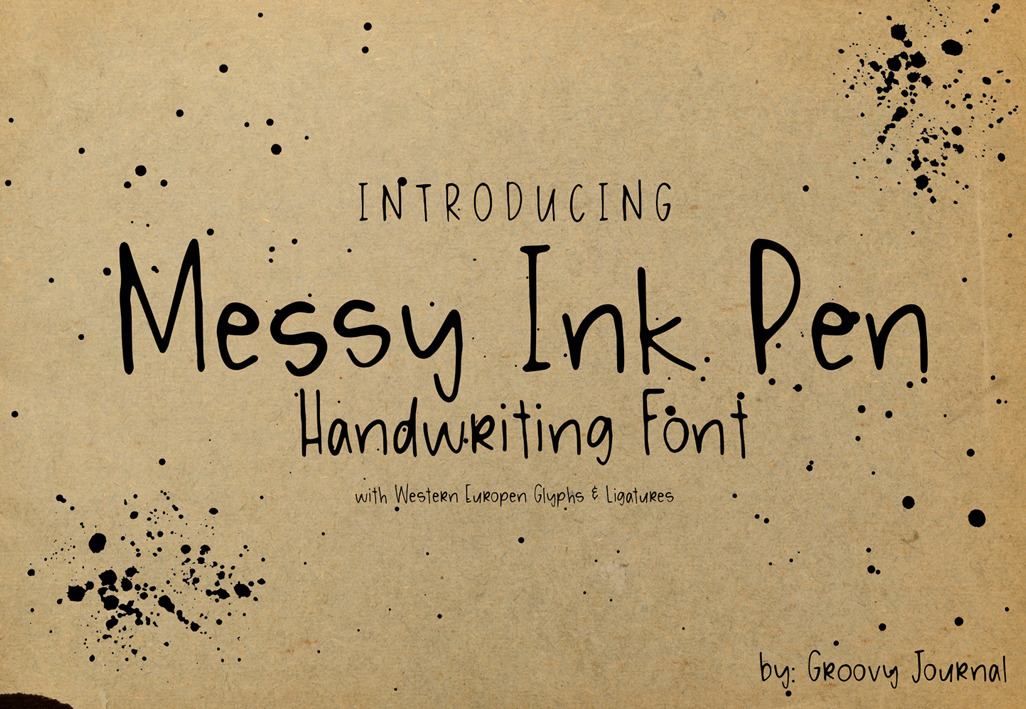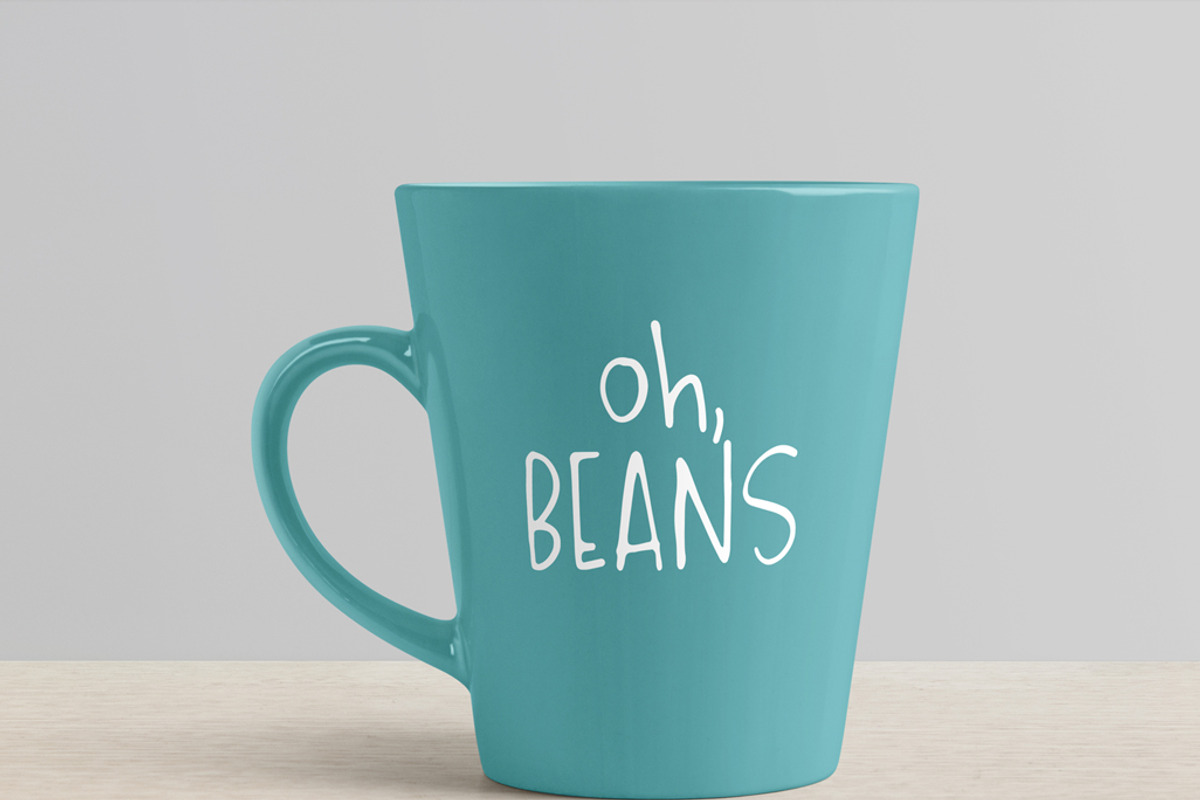
Messy Ink Pen Handwriting Font
Give your designs a hand-lettered dose of personality with the Messy Ink Pen Handwritten Font! This font was designed to create a unique and genuine hand-lettered look and feel to all your projects. Perfect for greeting cards, branding, social media, packaging, magazine layouts, prints and more!
- Upper and lowercase, punctuation, numbers
- Lowercase ligatures